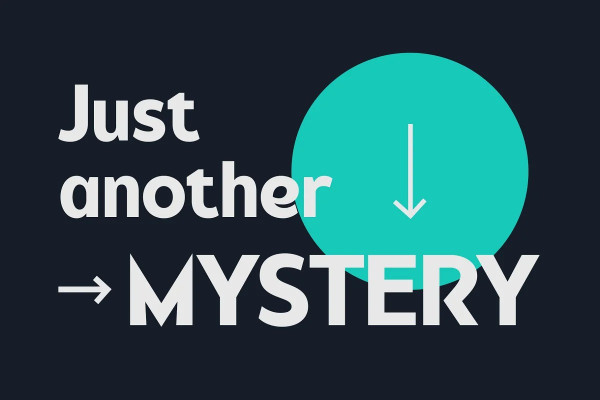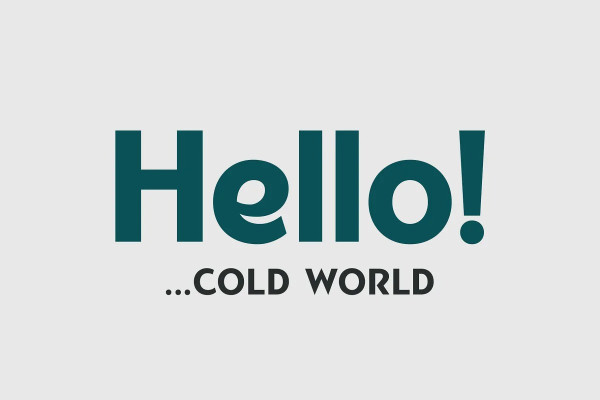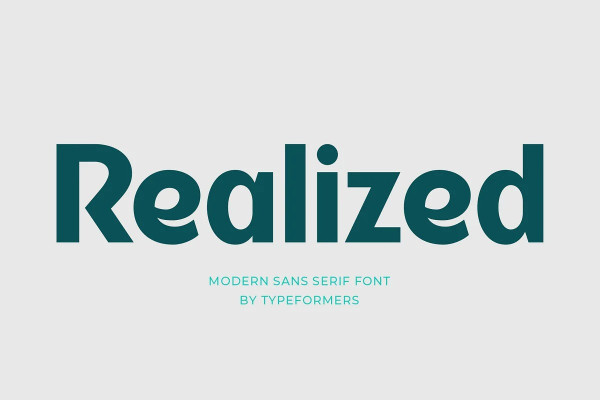
Realized Font
Realized Font – Modern Sans Serif, is a modern and simple font, best used as a display for headings, logos, branding, magazines, product packaging and invitations.